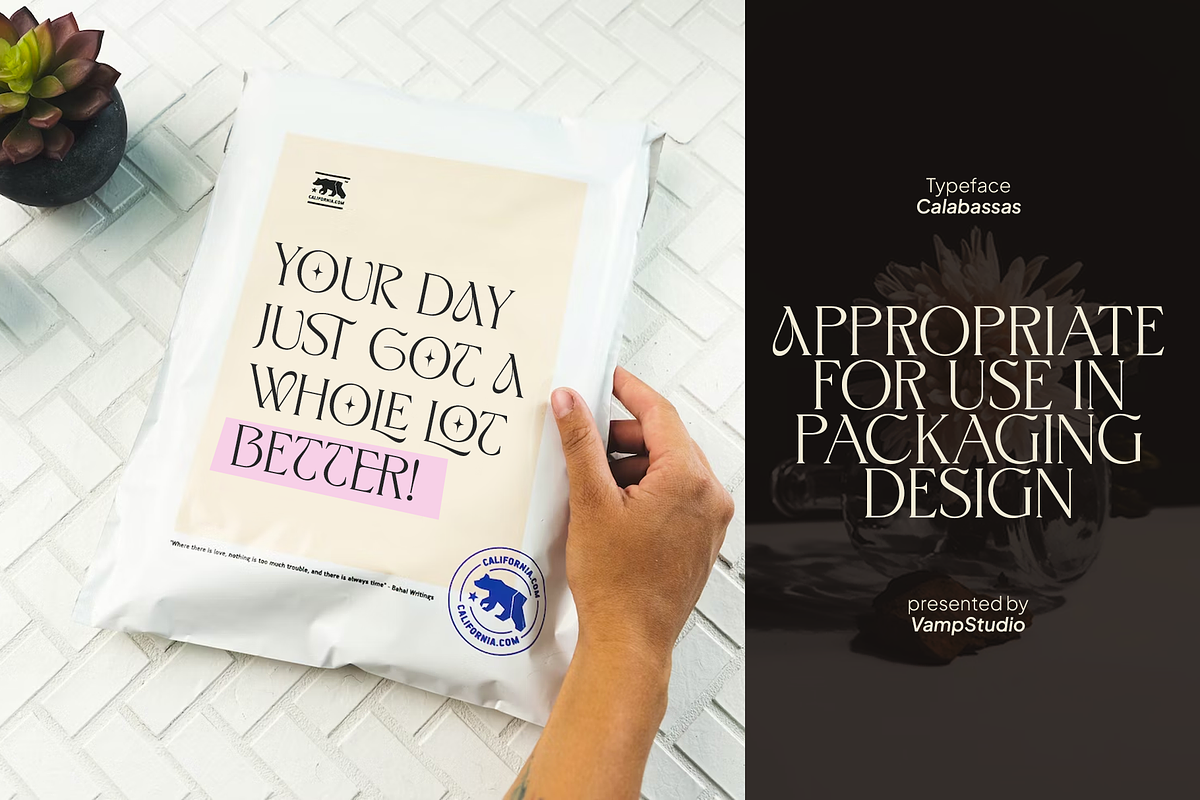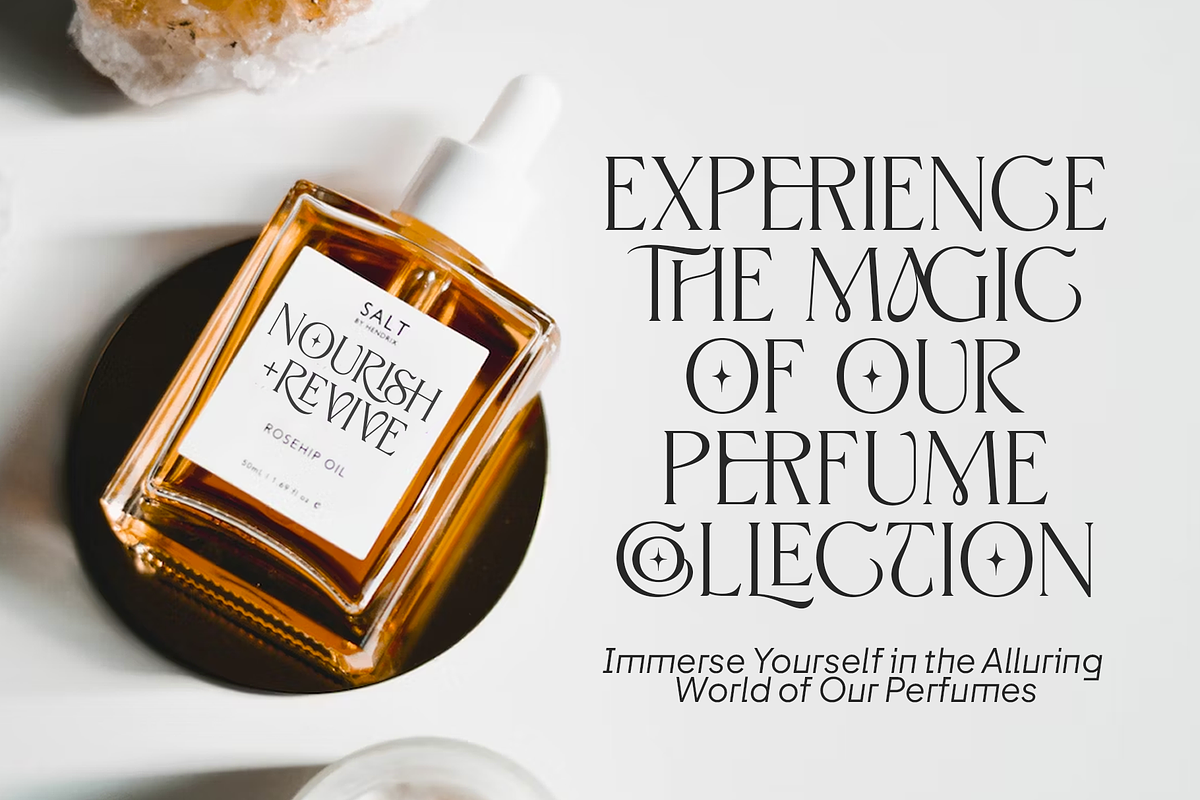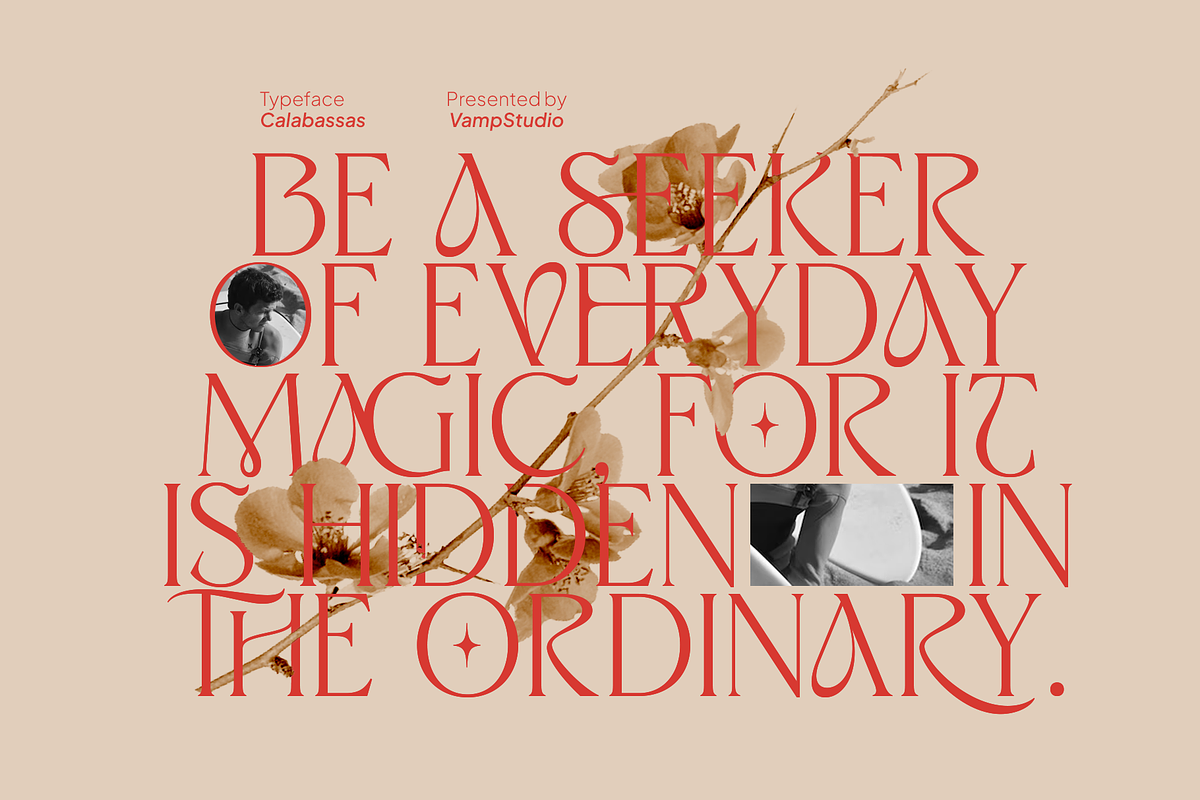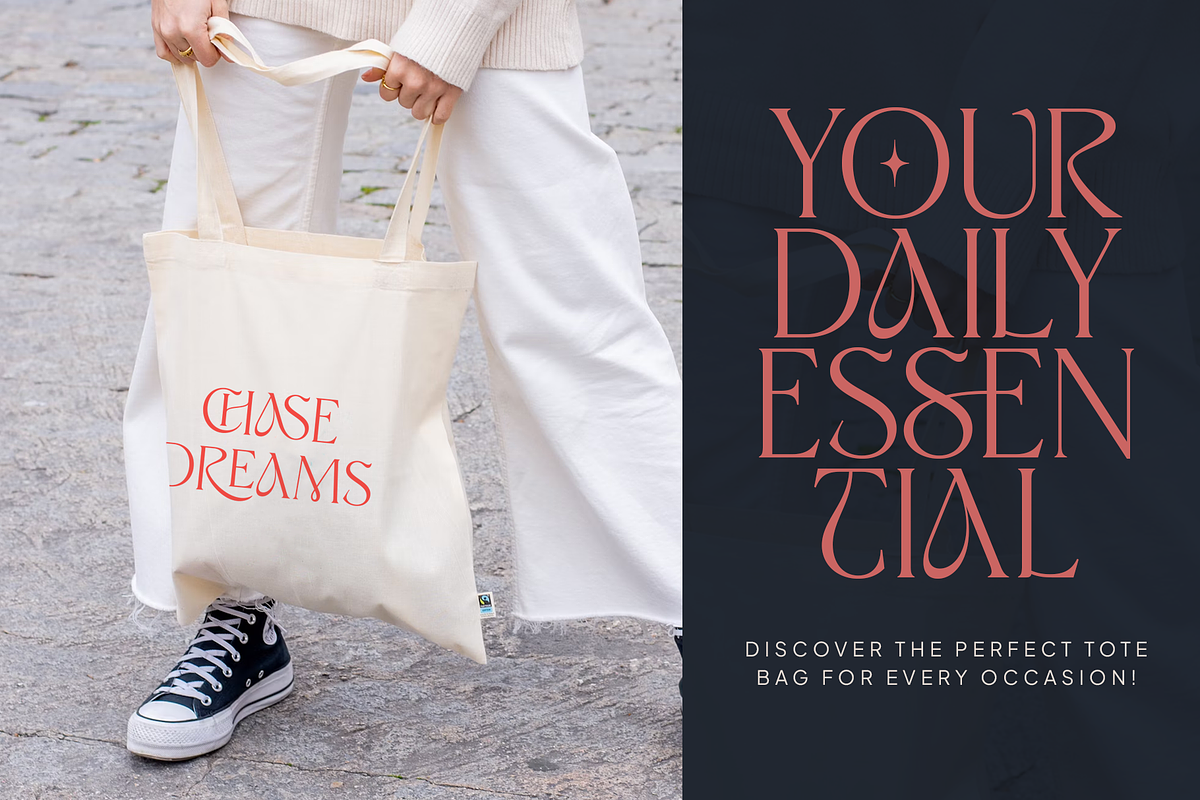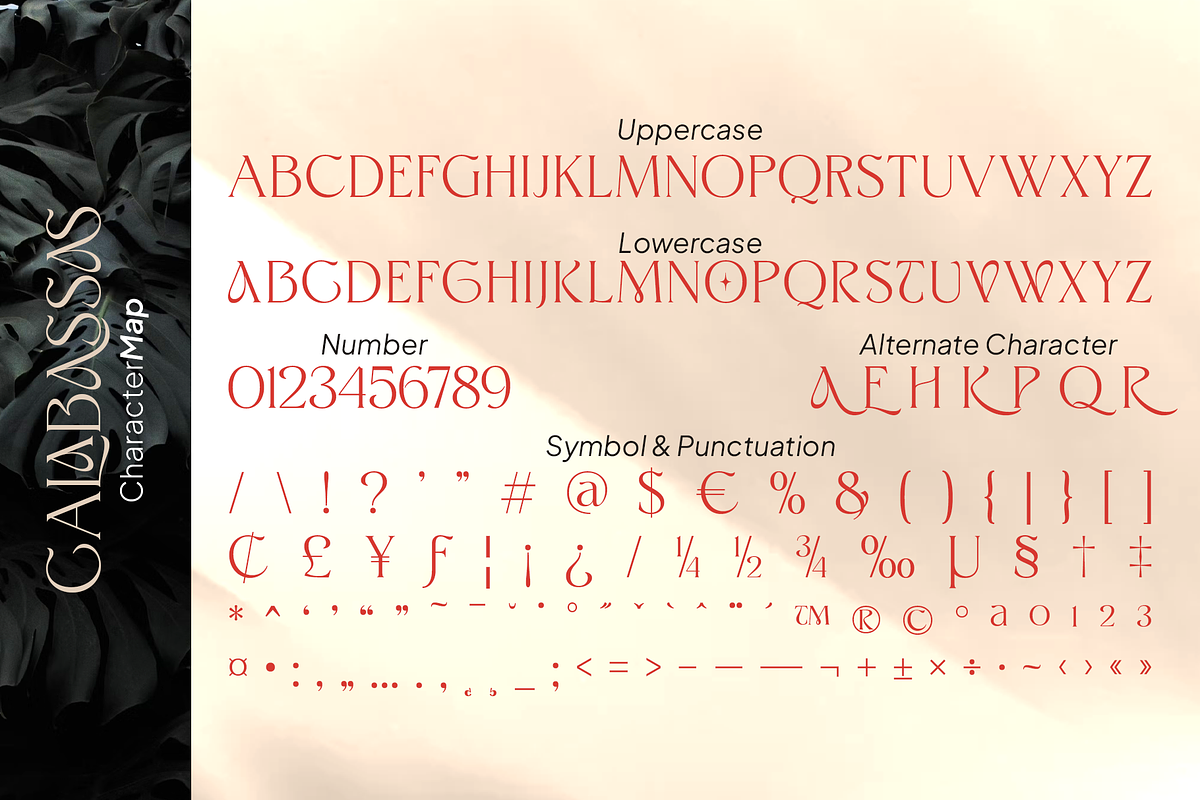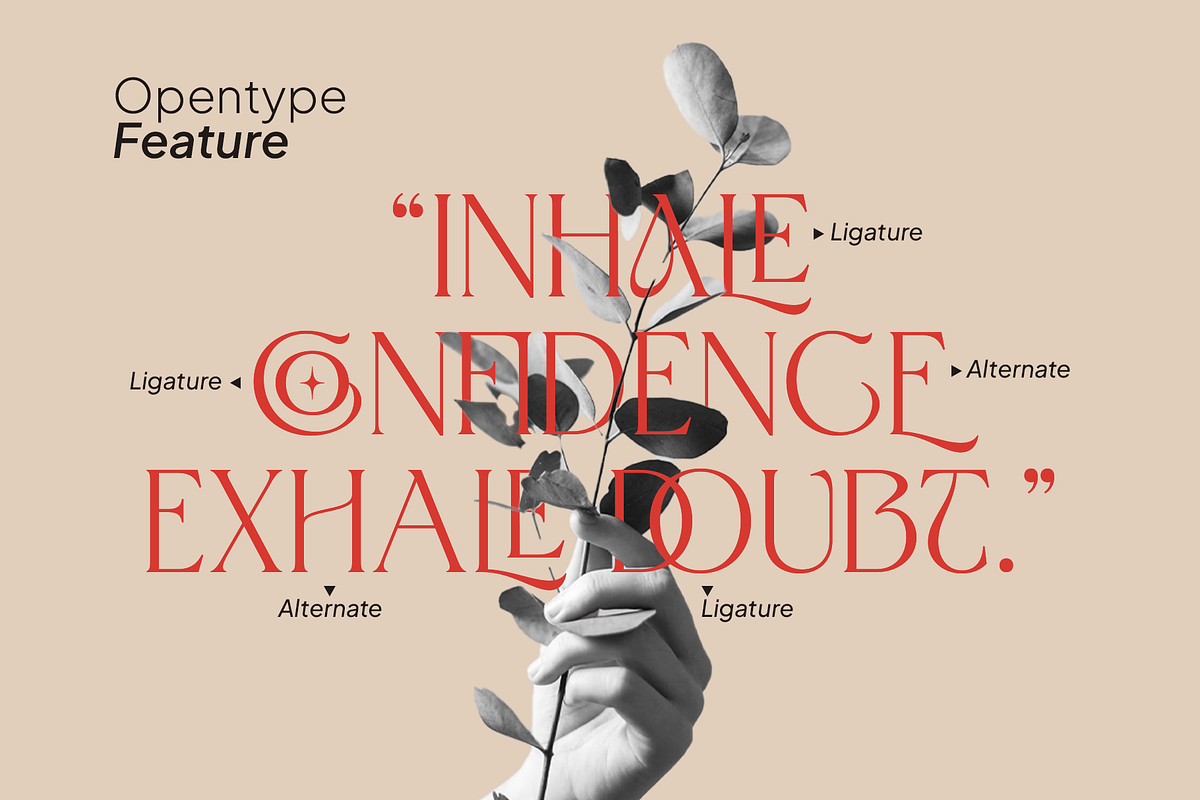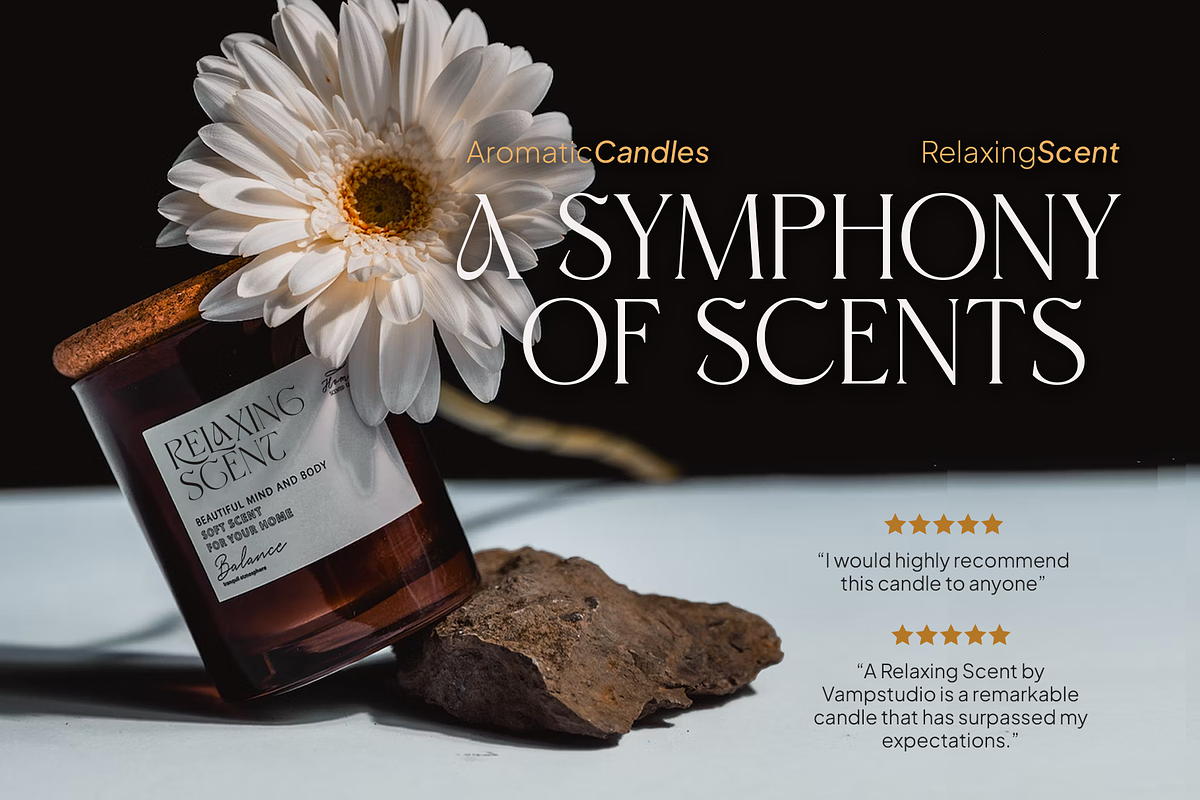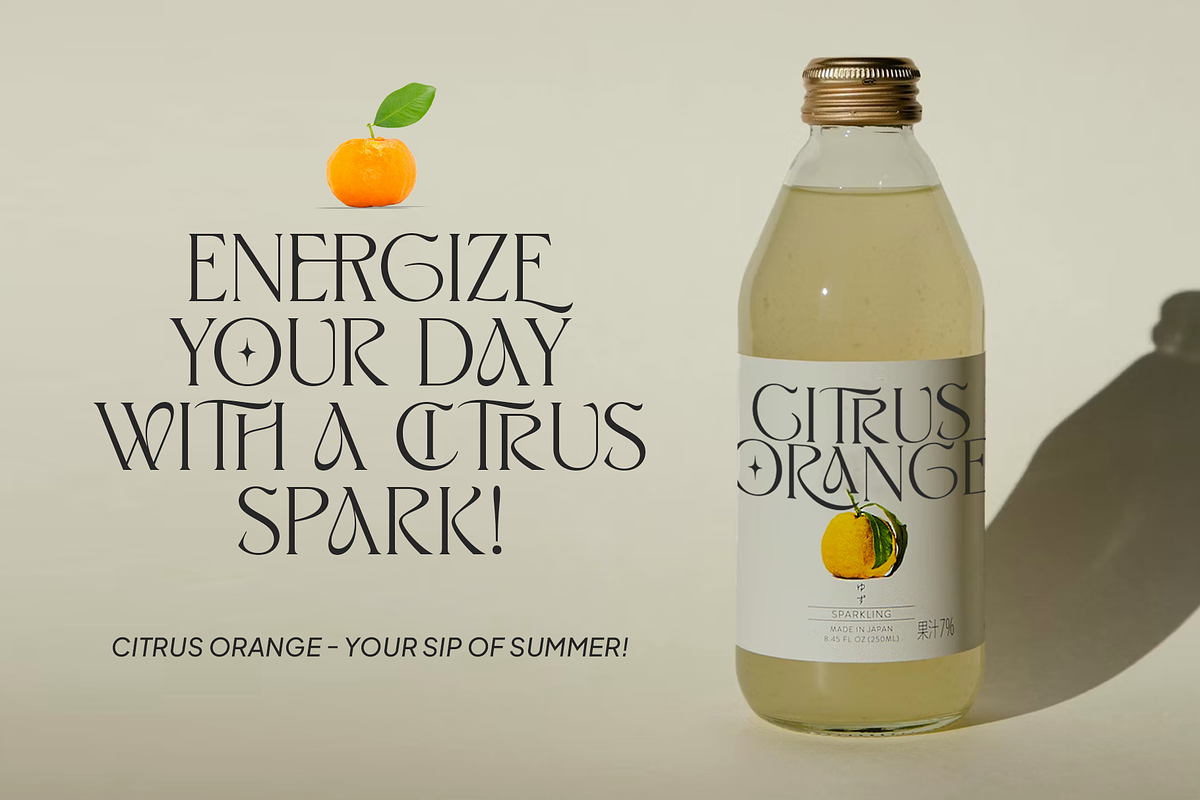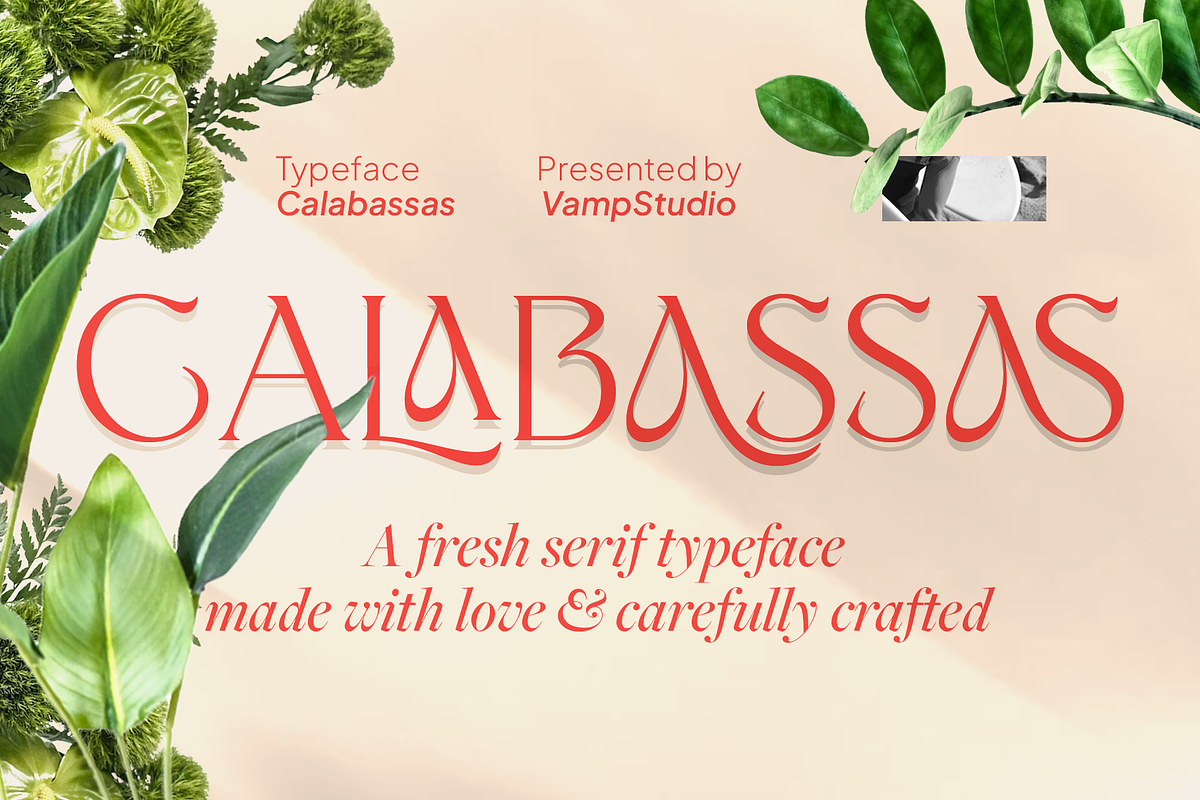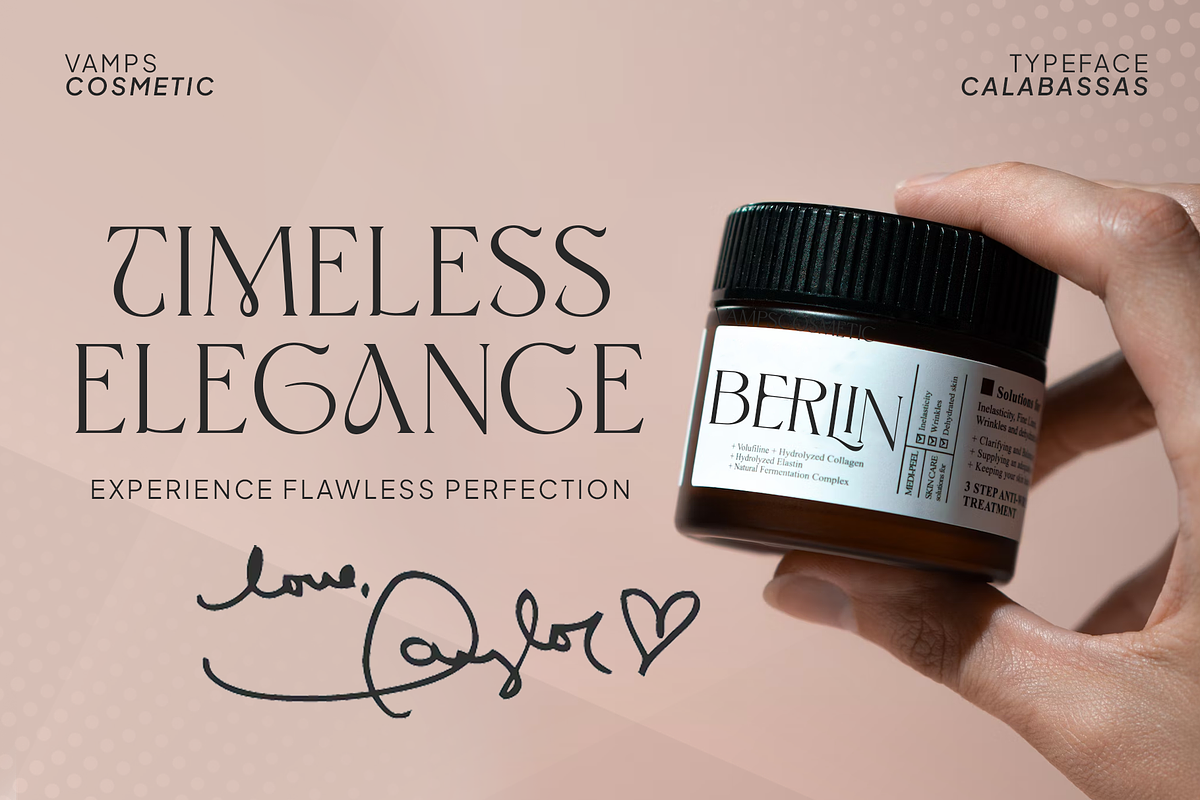
Calabassas Fresh Modern Serif
Calabassas serif is a modern elegant and stylish serif typeface. This font looks very simple, clean, and elegant. Specially designed by skilled hands makes this font is the perfect fit for all your big projects.
Calabassas serif is perfect for branding projects, logo, wedding designs, social media posts, advertisements, product packaging, product designs, label, photography, watermark, invitation, stationery and any projects that need luxury and modern taste.
- Ligature & Alternate